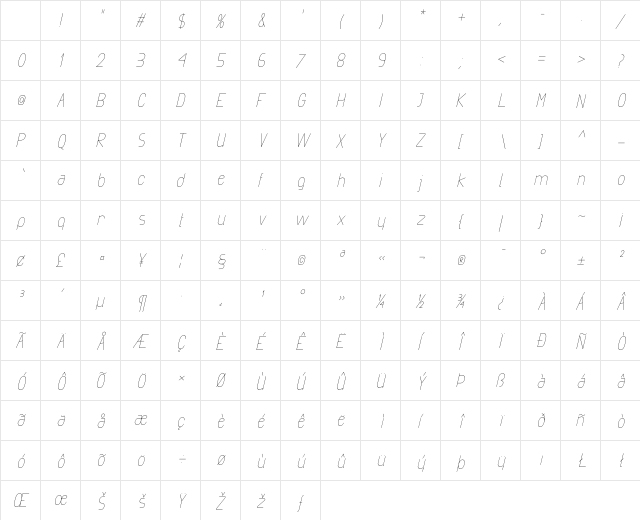
Complete Exacta Light-Italic glyph index. Displaying only characters natively supported by Exacta Light-Italic font.
Exacta is a composed and adaptable typeface that performs quietly and consistently across a wide range of design contexts. The slanted form adds forward momentum and visual energy. Its slender proportions lend an understated elegance to any composition.